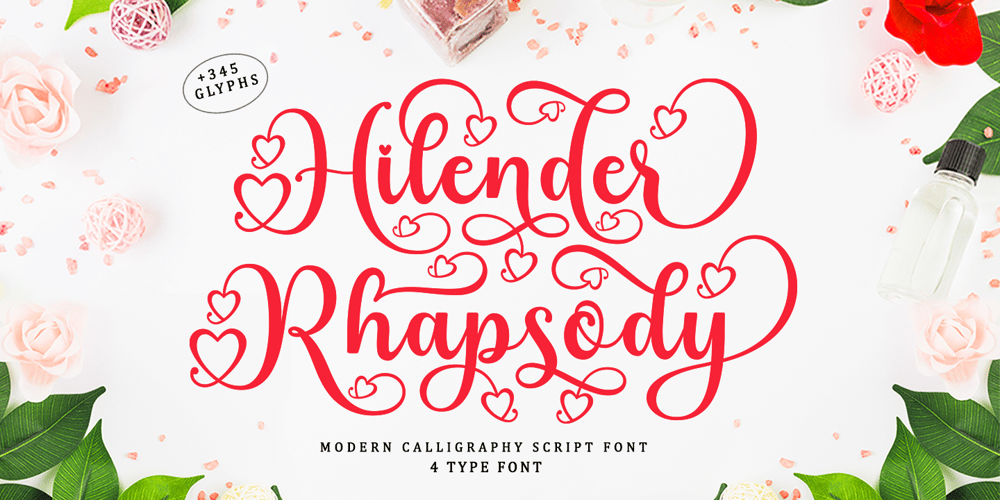
Hilender Rhapsody Font Family was designed by Muhammad Nazar and published by Bungletter. Hilender Rhapsody contains 4 styles and family package options. Hilender Rhapsody is a modern script font that has a cute and elegant touch.Hilender Rhapsody is attractive because it is sleek, clean, feminine, sensual, glamorous, simple and very easy to read, thanks to its many luxurious lettering connections. I also offer a number of decent stylistic alternatives for some of the letters. The classic style is very suitable to be applied in various formal forms such as invitations, labels, restaurant menus, logos, fashion, make up, stationery, novels, magazines, books, greeting/wedding cards, packaging, labels or all kinds of advertising purposes. . . . . . . . .Files include:• Hilender Rhapsody Regular• Hilender Rhapsody Bold• Hilender Rhapsody Slant• Hilender Rhapsody Bold SantContains full set:-Has 4 font models: Regular, Bold, Slant and Bold Slant-Uppercase-Lowercase-Alternative-Ligatures-Punctuation-Number-Multilingual support.need help or have questions let me know. I’m happy to help.Thanks & Congratulations on the Design!